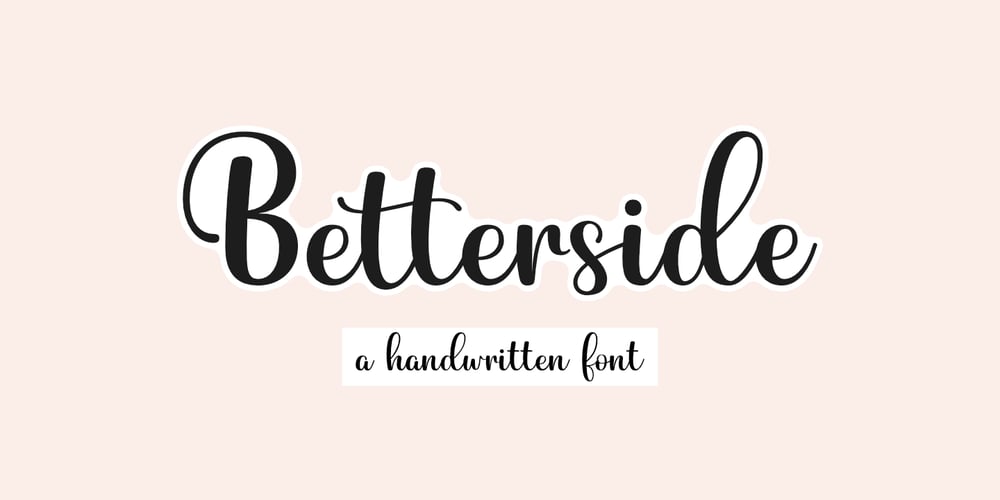
Betterside
Betterside font
Betterside Font Family was designed by Diki Hermawan and published by Typestory. Betterside contains 1 styles and family package options. Betterside is a sweet and cursive handwritten font. This gentle font will look gorgeous on a variety of design ideas. It will add a joyful and romantic touch to each of your projects!The font is perfect for greeting cards, branding, business cards, quotes, posters, stickers, blogs, logos, weddings, signage, packaging, birth announcements, photo overlays, wall art, quotes, printed materials, bags, t-shirts and more. . . !What’s Included : Web Font Ton of glyphs Ligature, Alternate & Swashes Works on PC & Mac Simple installations Accessible in the Adobe Illustrator, Adobe Photoshop, Adobe InDesign, even work on Microsoft Word. PUA Encoded Characters – Fully accessible without additional design software. Thank you for your purchase!That’s it !! Have fun using our font 🙂